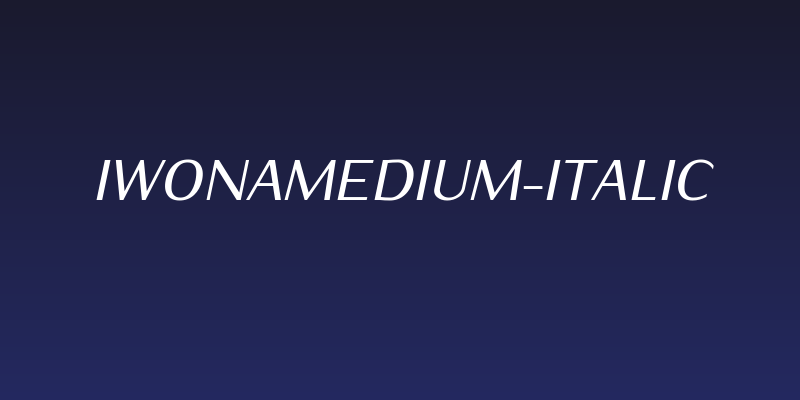
IwonaMedium-Italic Font
IwonaMedium-Italic Description
This font features a sleek and elegant italic style, characterized by its smooth curves and slightly slanted letters. The uppercase letters are tall and commanding, while the lowercase letters maintain a consistent flow, enhancing readability. The numerals are well-proportioned, aligning seamlessly with the alphabetic characters. Special characters are distinct and crafted with precision, adding to the font's versatility. The overall design is modern yet timeless, making it suitable for a variety of applications. Its medium weight provides a balanced presence, neither too bold nor too light, ensuring clarity and emphasis where needed.
| Proposed Projects | Ideal for editorial design, branding projects, elegant invitations, and stylish website headers. |